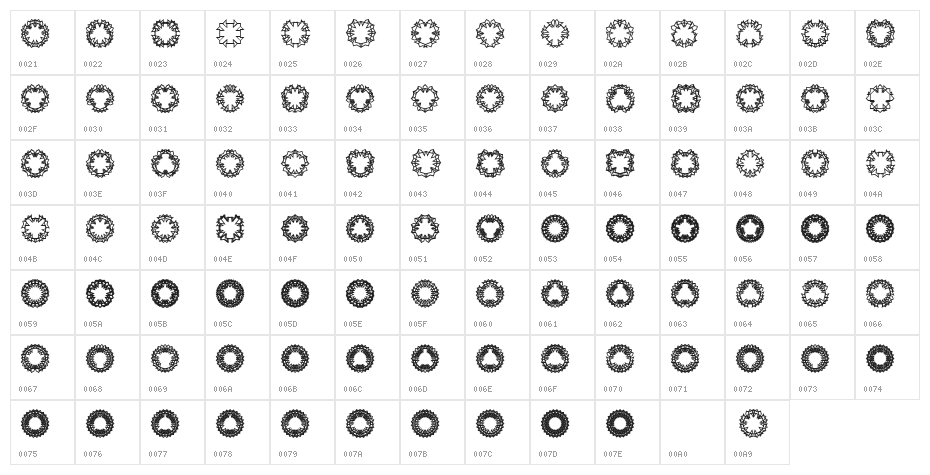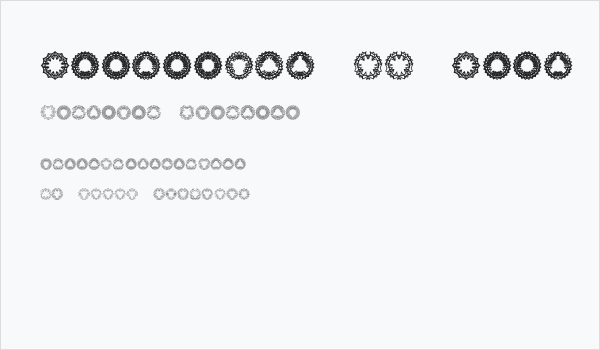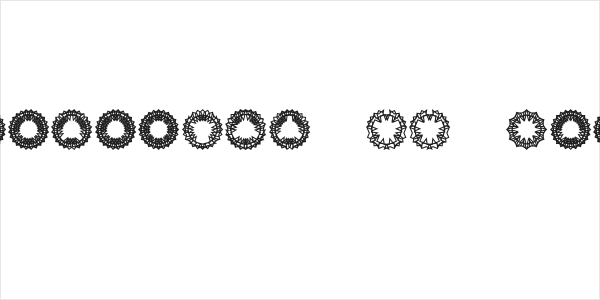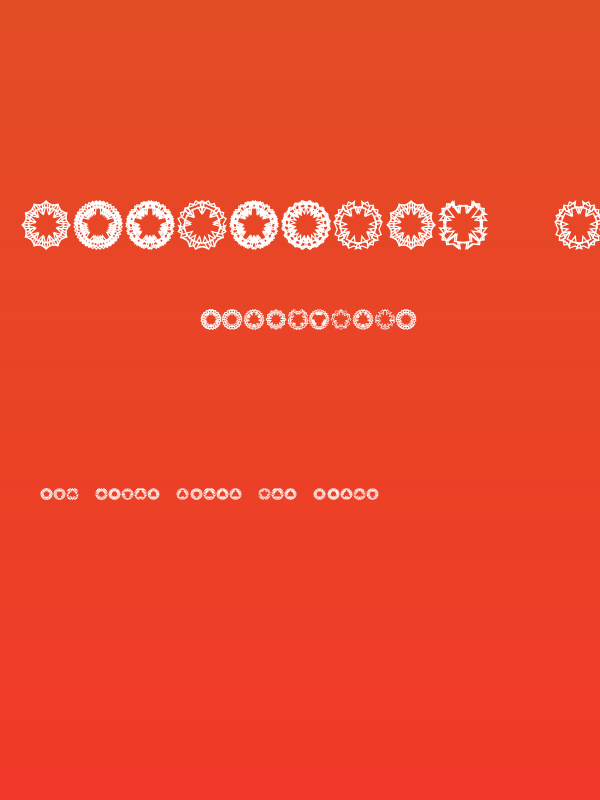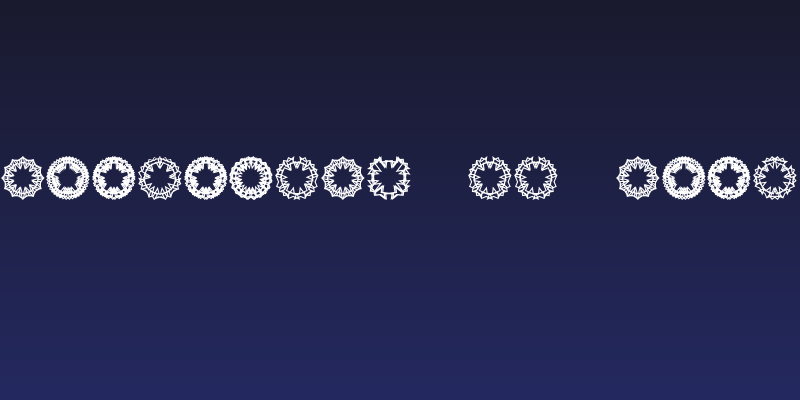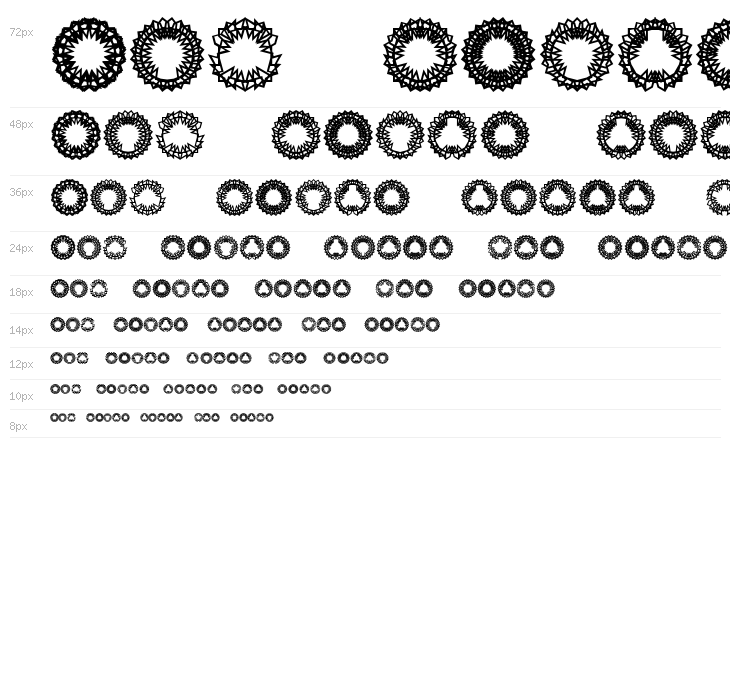
Ovulution II Ovum Font
Ovulution II Ovum Description
A highly decorative and abstract font where each character is represented by a circular, organic form with jagged, spiky, or irregular edges, resembling microscopic or biological structures. The glyphs are uniform in weight and have no clear distinction between uppercase, lowercase, or numerals, focusing on ornamental shapes rather than legibility.
| Overall Style | Decorative, Experimental, Organic |
| Use Case | Logos, Posters, Artistic projects, Display titles |
| Proposed Projects | Album covers, science or biology-themed posters, experimental art projects, branding for creative industries, event graphics. |
| Author | Fonts by Apostrophic Lab |